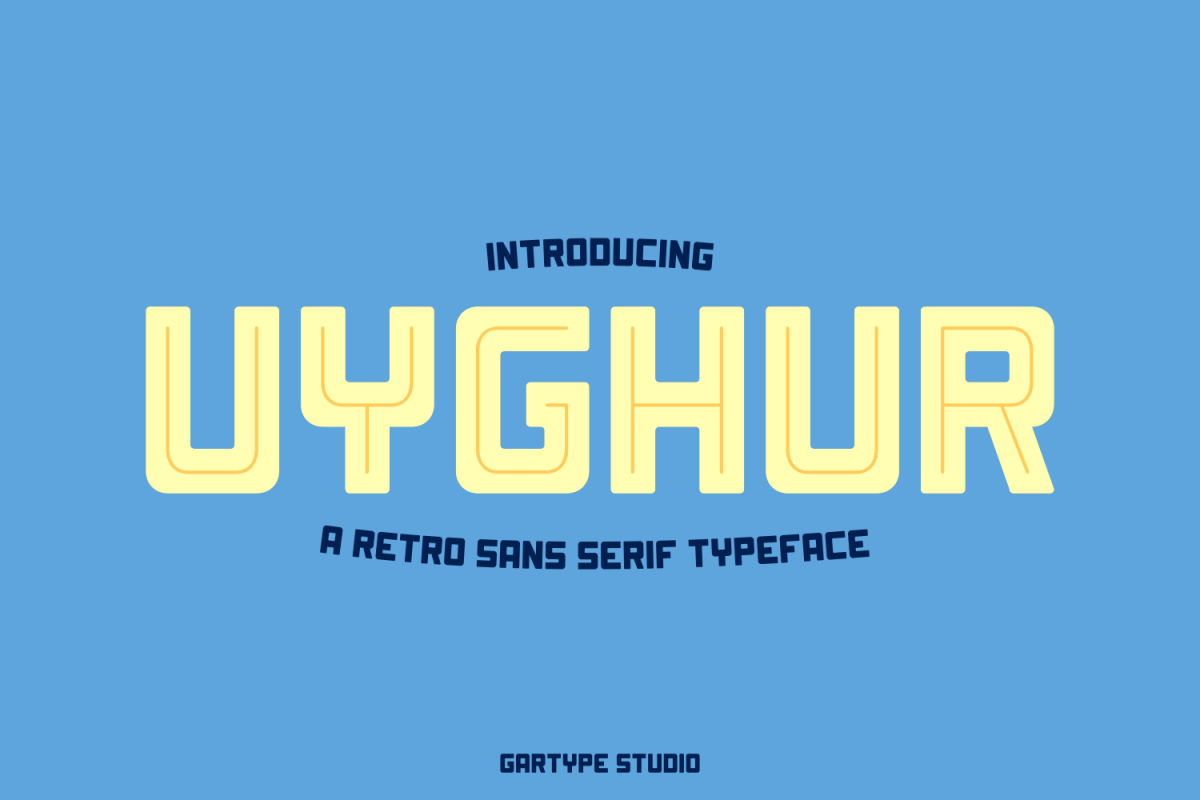
Uyghur - Retro Font
Hi there! Introducing Uyghur a clean font with retro style.
Uyghur have 3 styles,there are regular,inline,and outline tomake your design more cool !.
Uyghur is very suitable to many project like logo,title,book cover,poster and more.